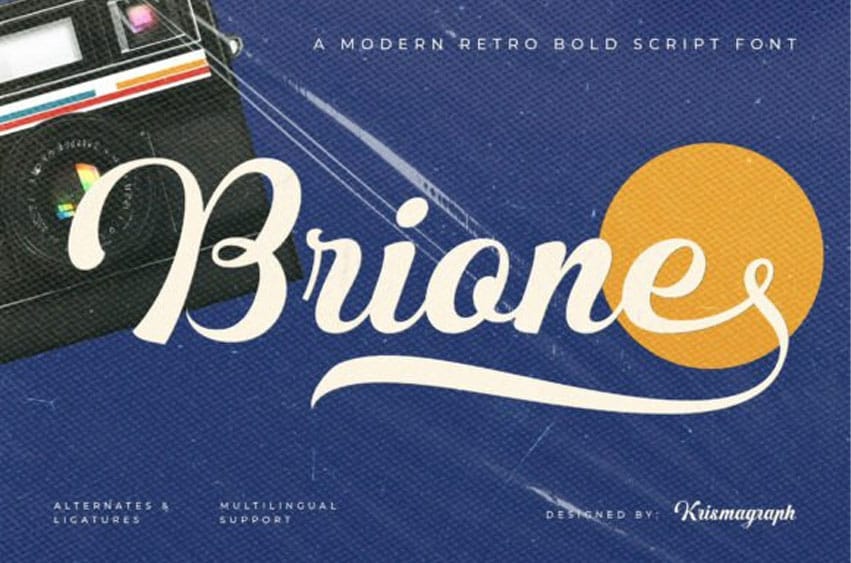
Brione Font is a vibrant, modern retro script that captures the energetic spirit of vintage advertising with a contemporary bold twist.
This Brione typeface features thick, bouncy strokes and expressive swashes that give it a playful yet professional personality. It is the ultimate choice for food and beverage labels, casual apparel, and nostalgic social media graphics that need a “pop” of character. You can enhance the Brione font by using its numerous alternates to create custom, hand-lettered hierarchies that feel alive and dynamic.
Pair it with a simple monolinear sans-serif or a vintage-style slab to ground its expressive nature. Its retro charm and high legibility make it an essential tool for any designer aiming for a friendly, high-energy brand presence.